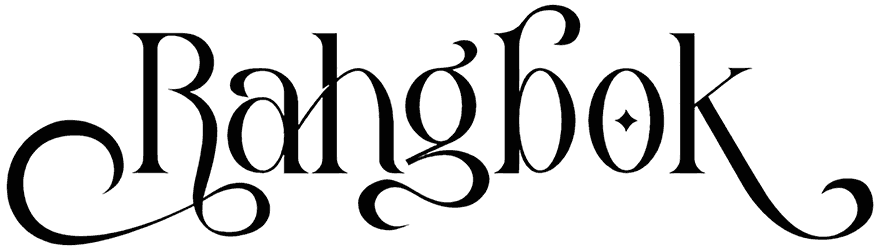
Rahgbok Font
Are you looking for a style that can make all tastes fall in love with your design? This serif font with its classic and unique style would be the right answer. As an all-purpose font with a full cover of characters, Rahgbok is a perfect choice for your creative ideas, like postcards, branding, books, and so forth.